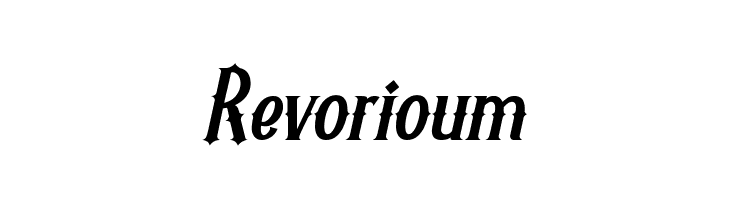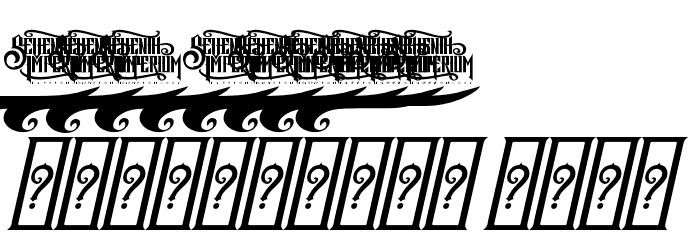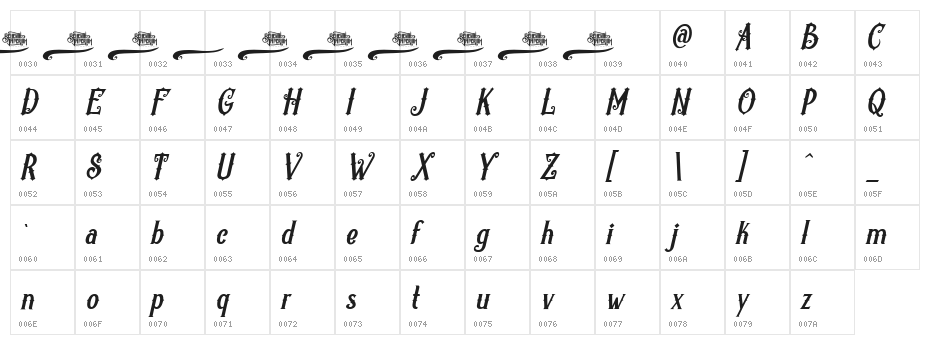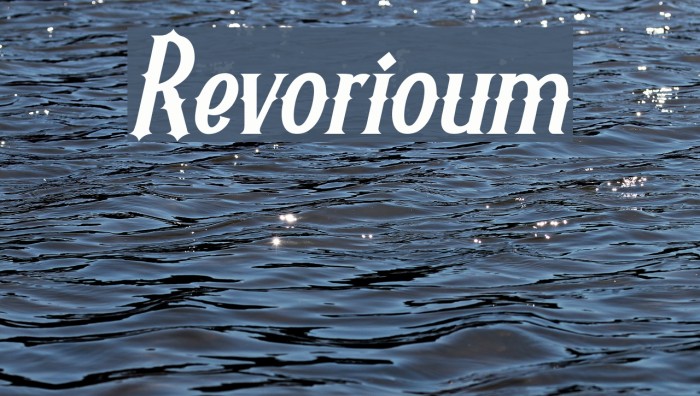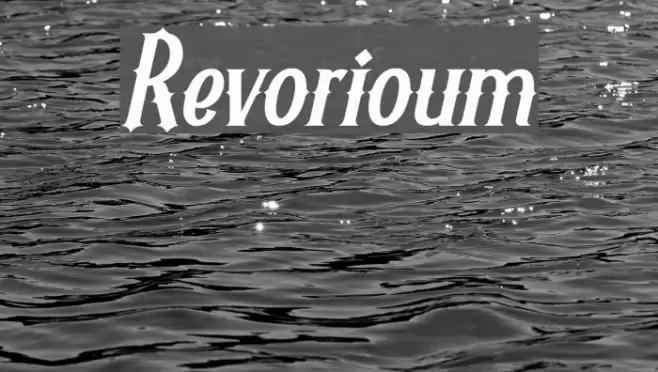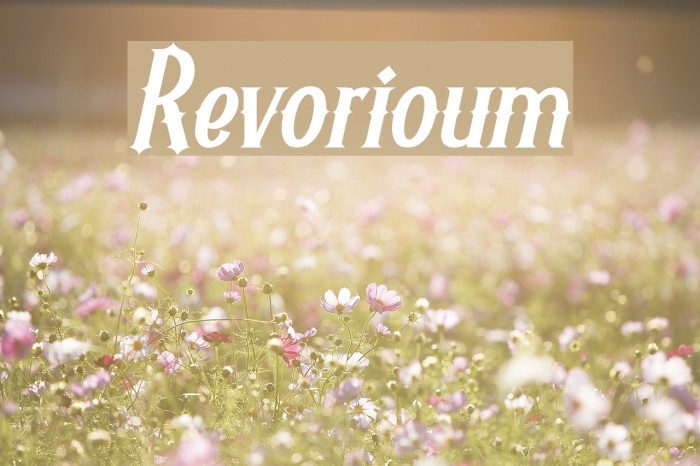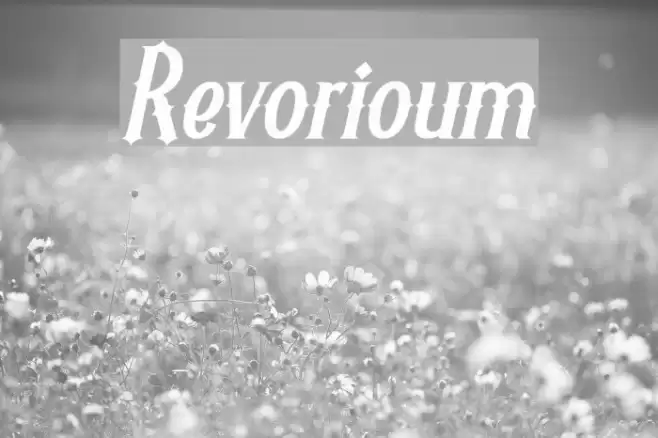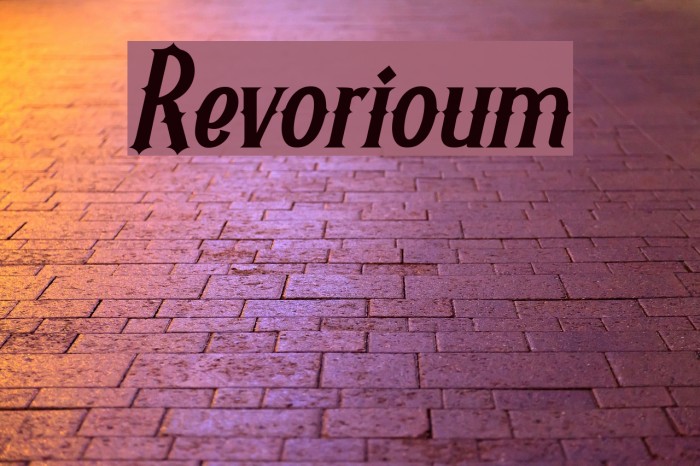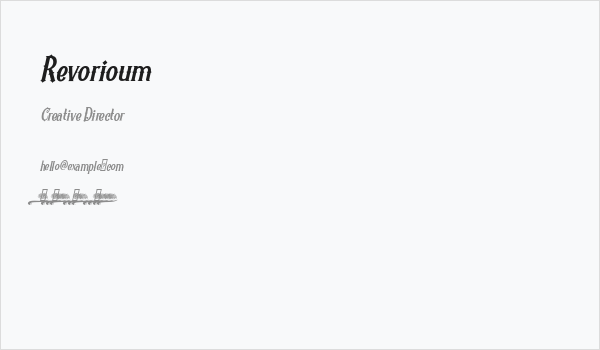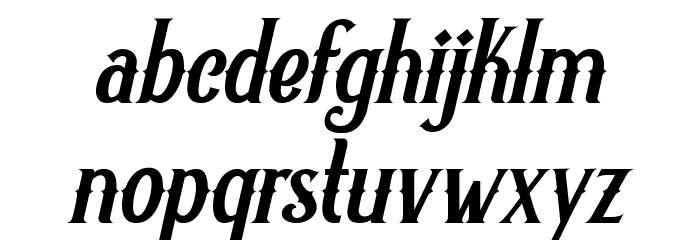
Revorioum Font
Revorioum Description
This font features a unique and decorative style with intricate swirls and embellishments on the serifs, giving it an ornate and artistic appearance. The uppercase letters are bold and commanding, with a distinct flair that makes them stand out. The lowercase letters maintain a consistent style, with a slightly more subdued presence but still retaining the decorative elements. The numbers and special characters follow the same ornate design, ensuring a cohesive look across all characters. This font's elaborate design makes it suitable for projects that require a touch of elegance and creativity.